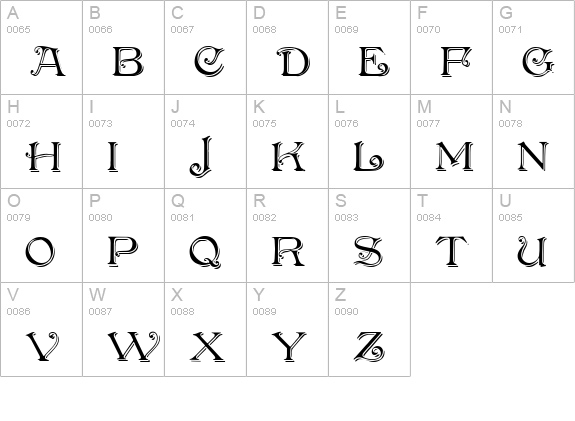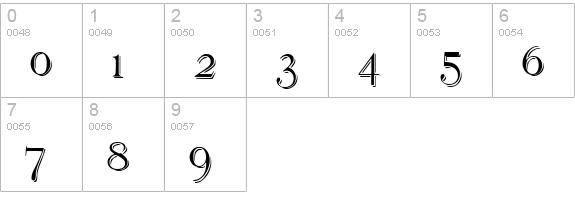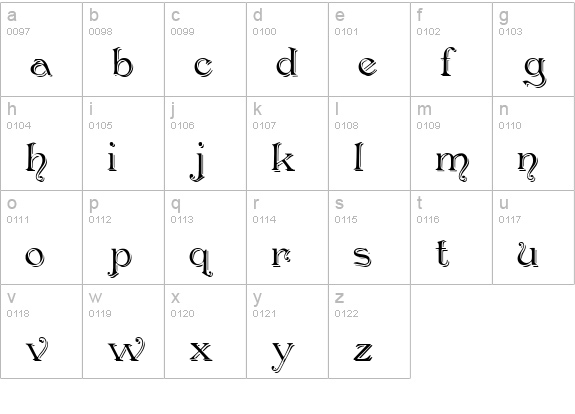
Penshurst_Shadow Font Details
Penshurst_Shadow is a captivating and versatile font that brings a touch of elegance and mystery to any project. With its intricate details and stunning shadow effect, this font is sure to make a lasting impression. Designed with precision and care, Penshurst_Shadow is perfect for adding depth and dimension to your designs. Whether you're creating eye-catching logos, stylish headlines, or unique invitations, this font will effortlessly elevate your work to new heights. One of the best features of Penshurst_Shadow is that it is completely free to download. Yes, you read that right - this remarkable font is available to you at no cost. It's a fantastic opportunity to enhance your design projects without breaking the bank. To get your hands on Penshurst_Shadow, simply visit FontsMarket.com. There, you will find a vast collection of fonts, including this gem. Downloading is quick and easy, allowing you to start using this font in no time. Don't miss out on the chance to add a touch of sophistication and allure to your designs. Get Penshurst_Shadow today and let your creativity shine!